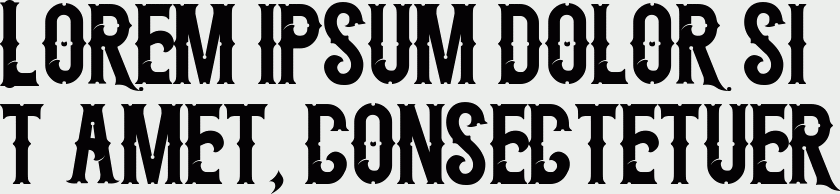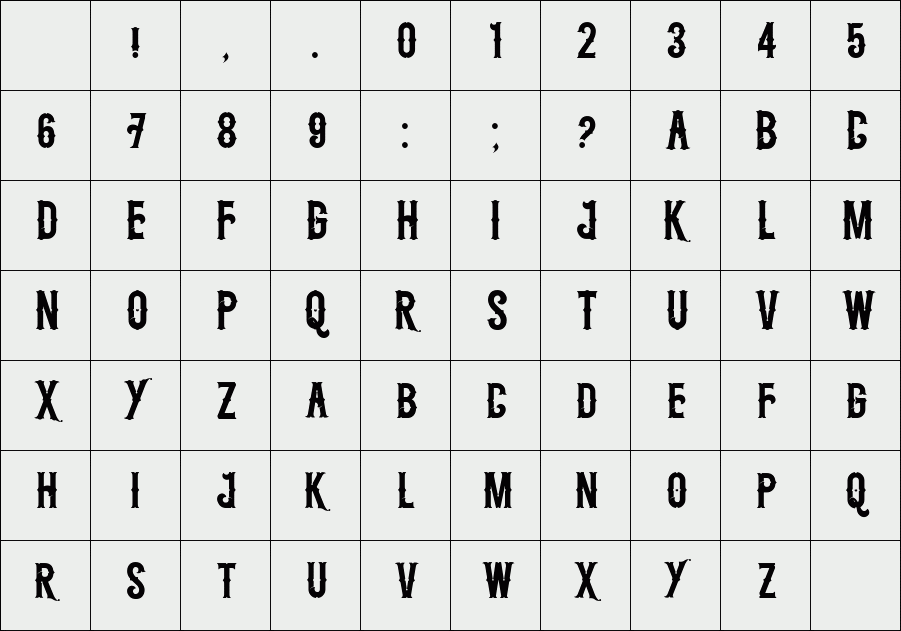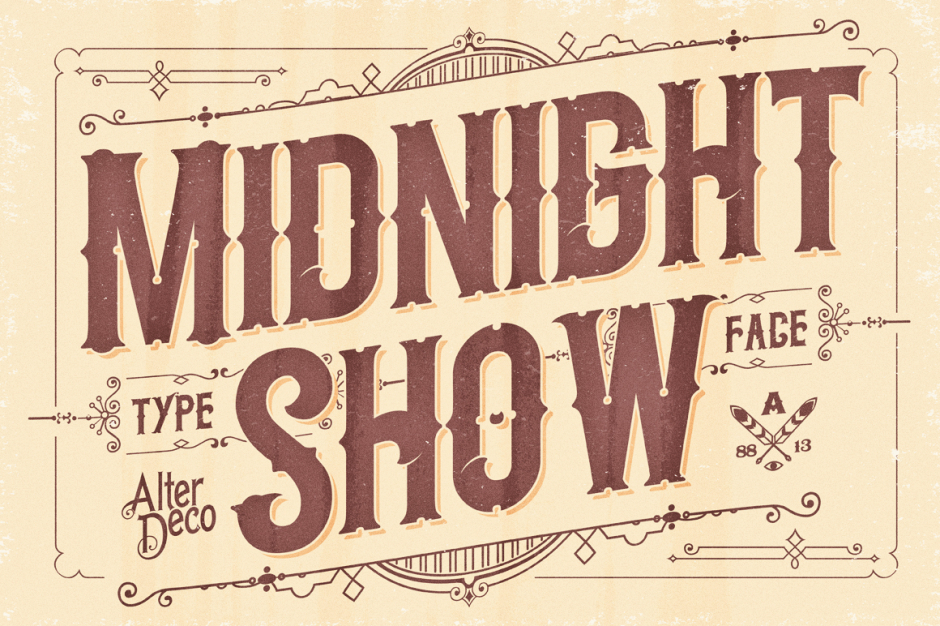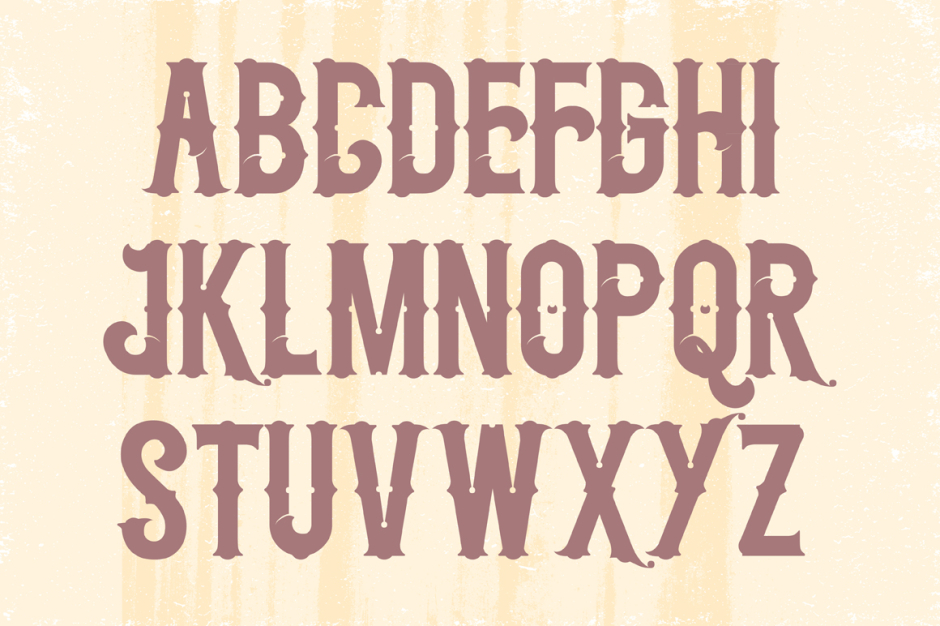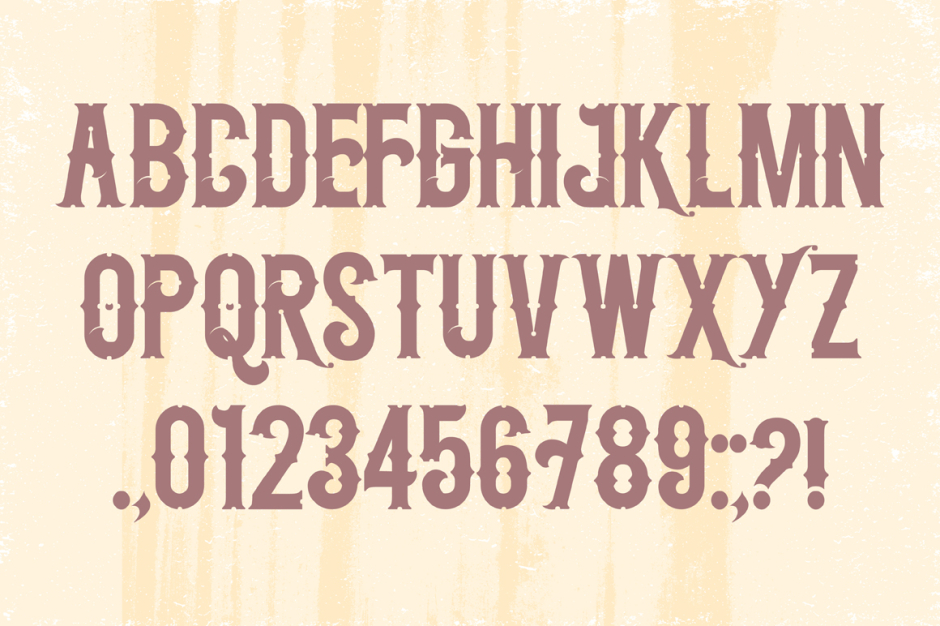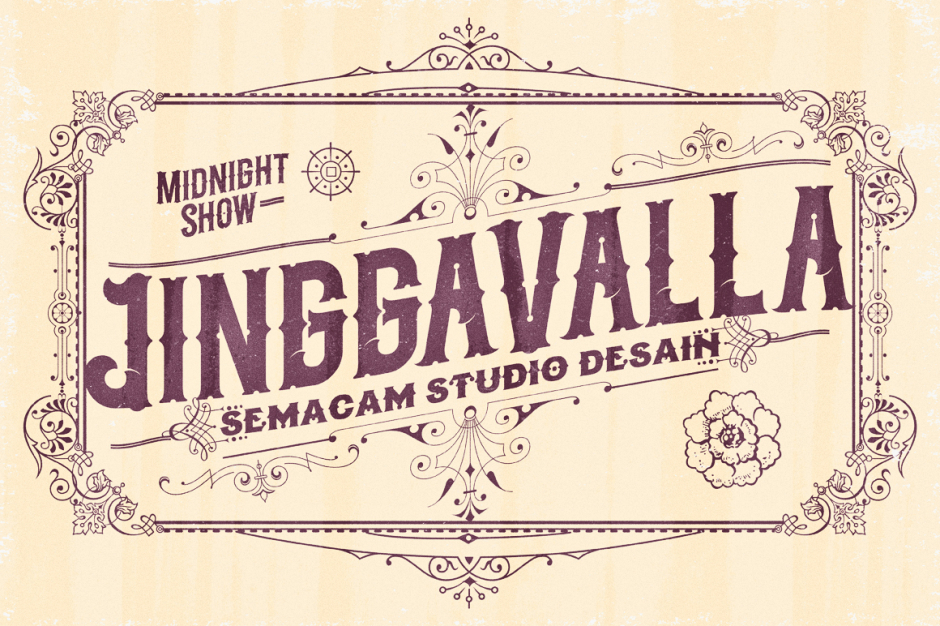
Midnight Show
/ Midnight Show typeface
"Midnight Show" typeface, it's an old fashioned typeface,, inspired by classic and vintage sign typography designs. It's perfect for creating a logotype, or a t shirt/apparel design. Please enjoy it and if you have any questions regarding this font, please contact me at helloadit@gmail.com